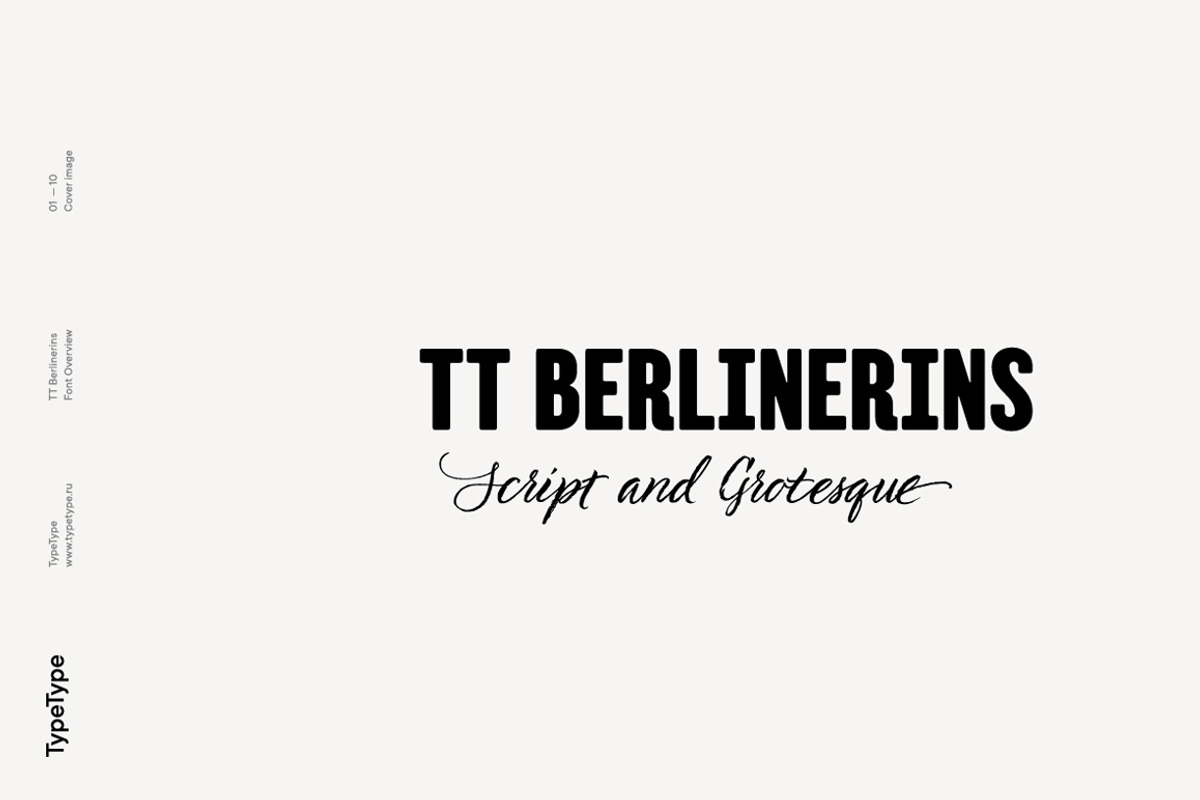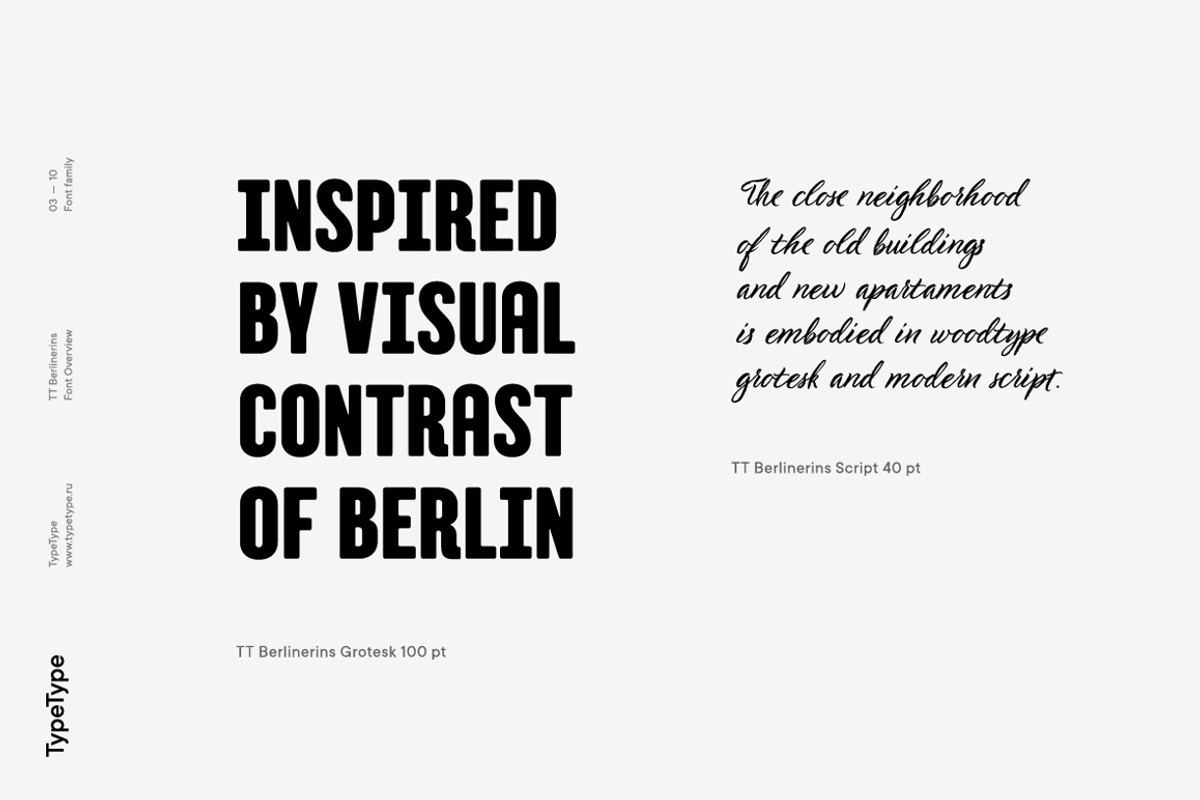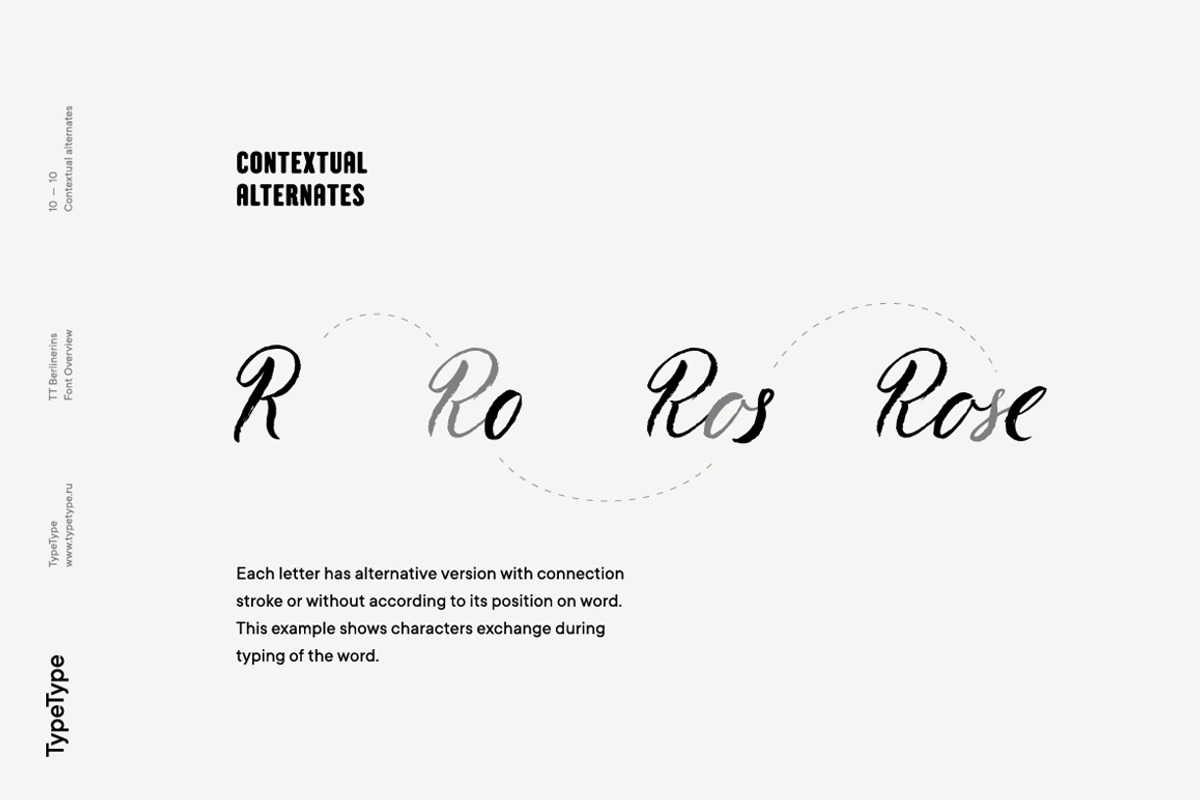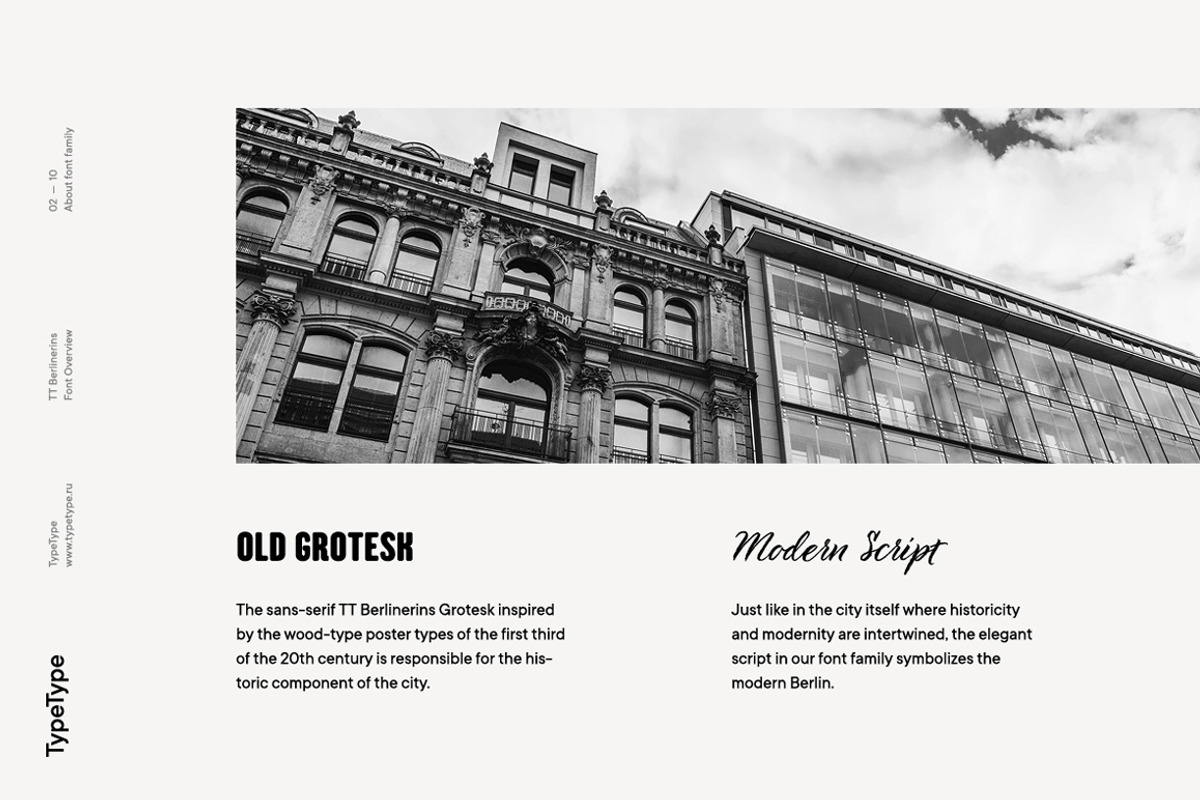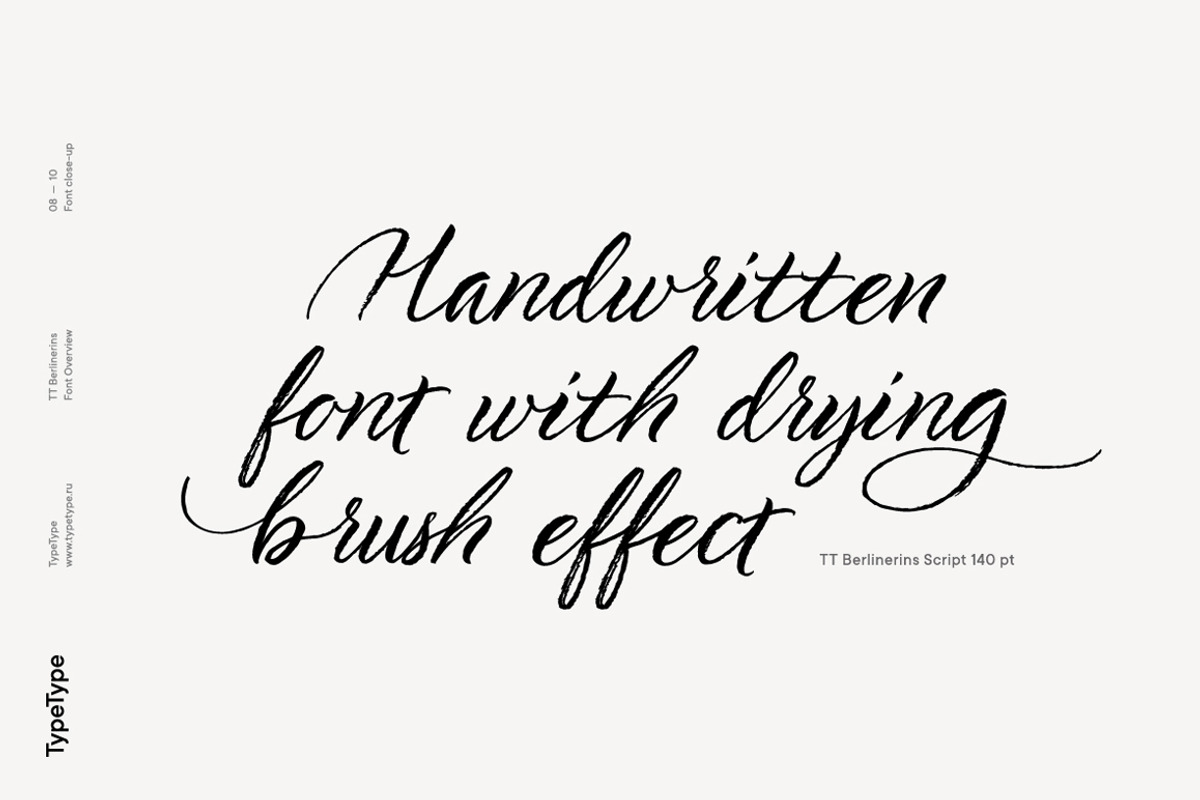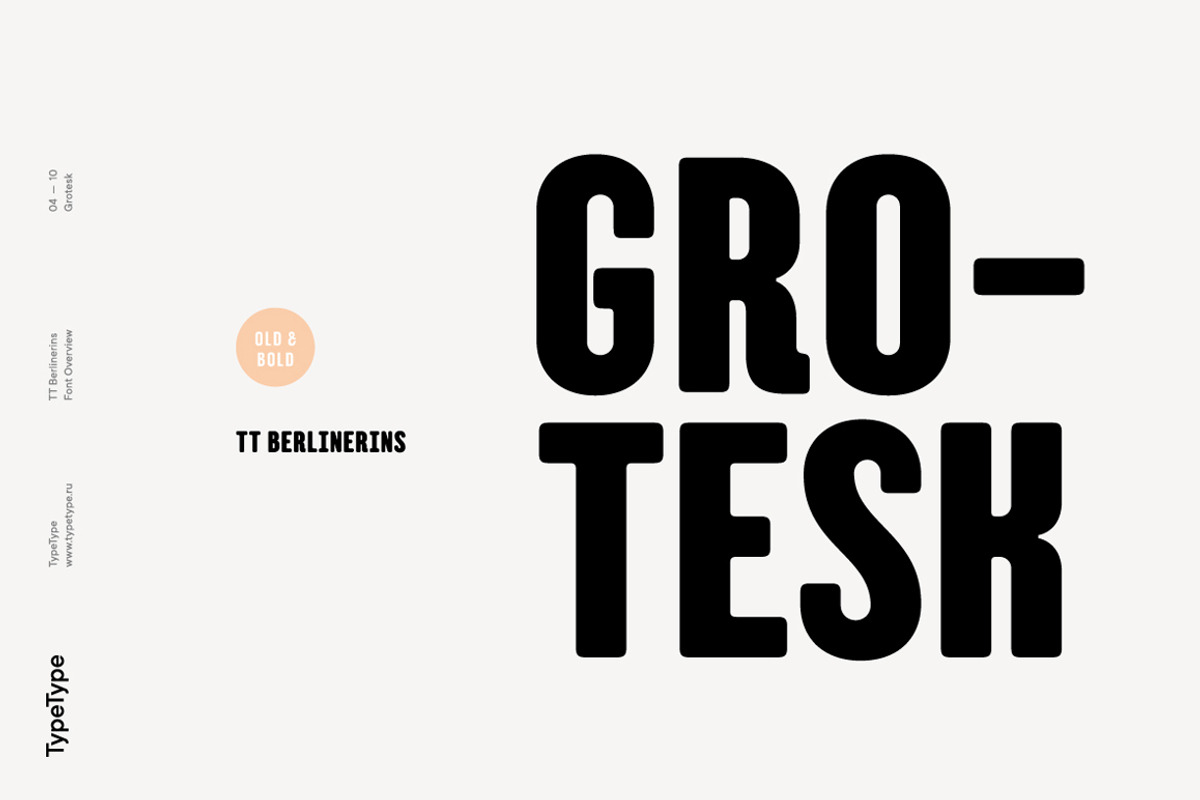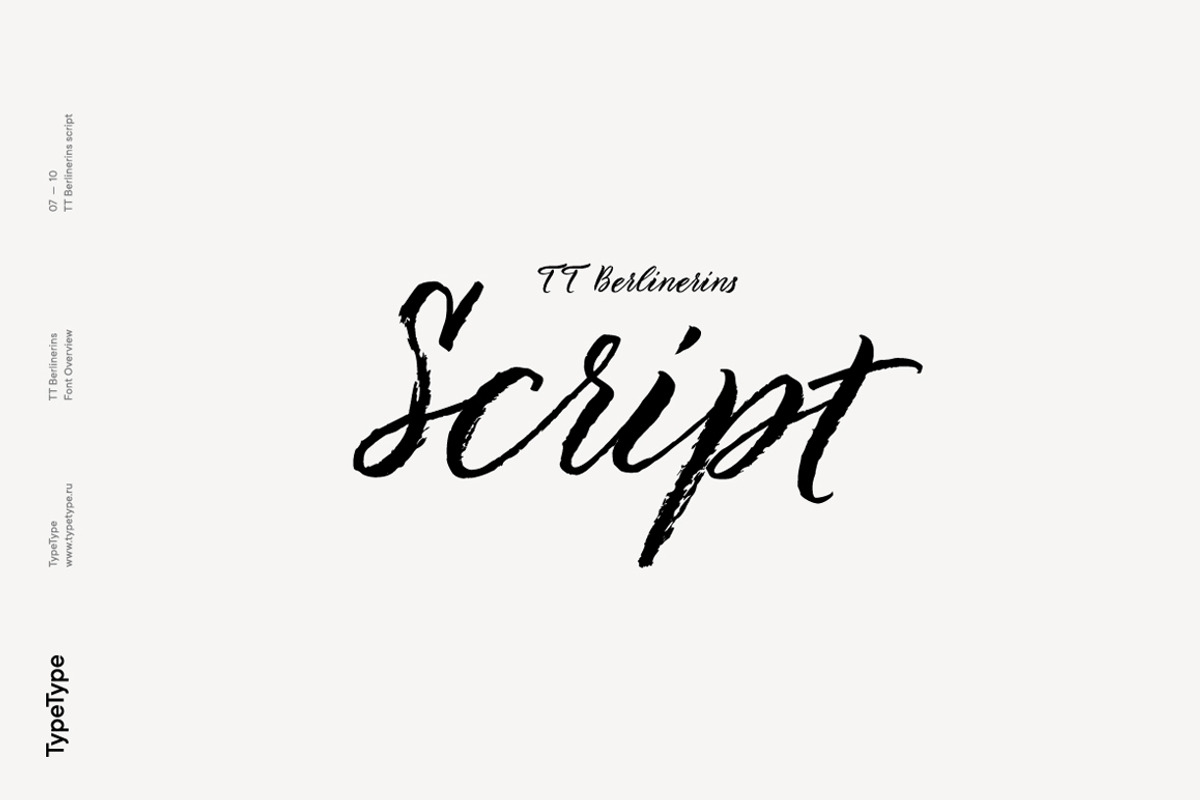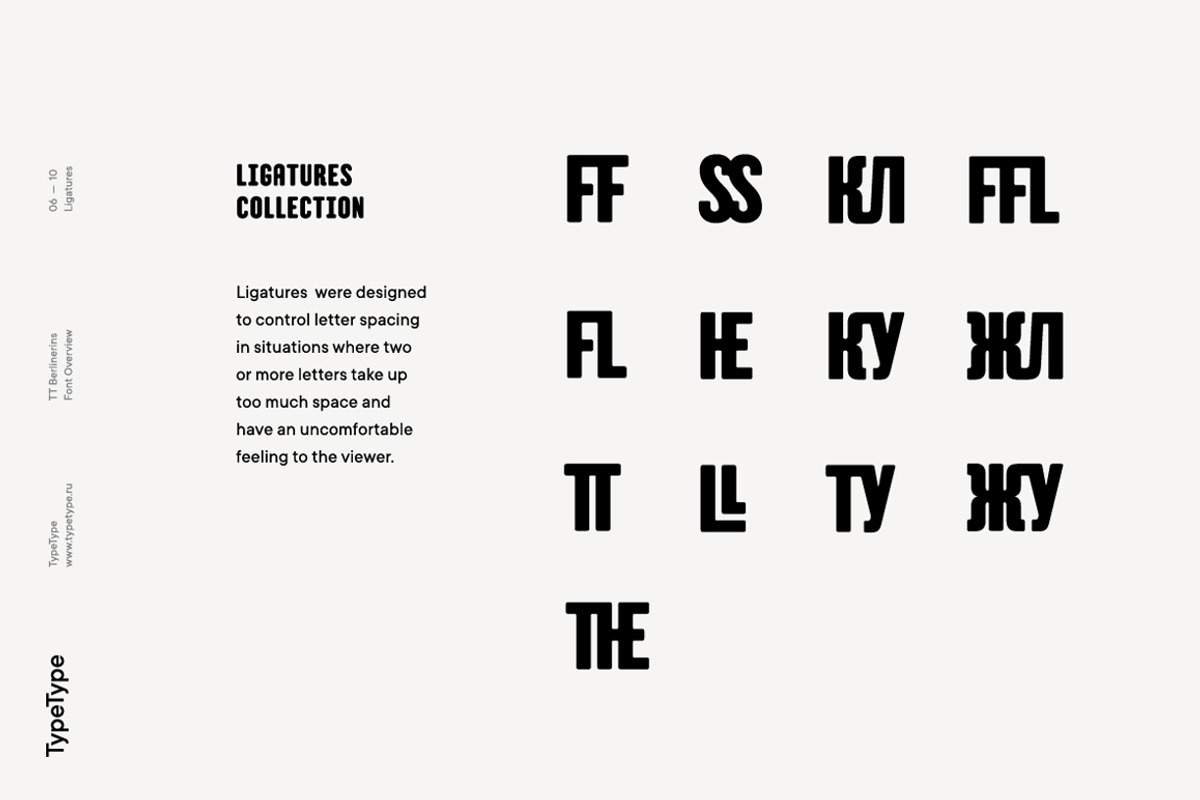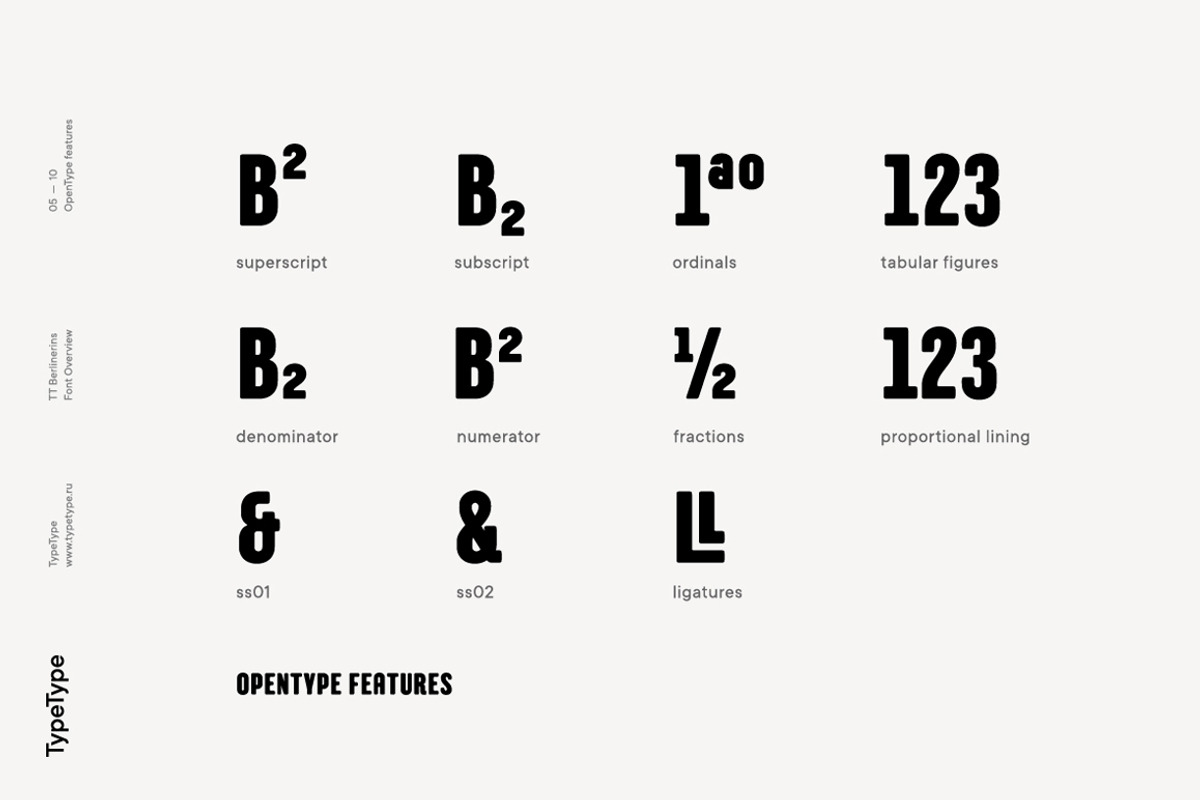
TT Berlinerins
- Script & Grotesk
- 998+ glyphs for Script and 479+ glyphs for Grotesk
- Supports 160 languages (incl. Cyrillic)*
- OpenType features, including Ligatures and Contextual Alternates**
TT Berlinerins is a contrast pair of typefaces which is basically our tribute to Berlin. Just like in the city itself where historicity and modernity are intertwined, the elegant script in our font family symbolizes the modern Berlin, and the sans-serif inspired by the wood-type poster types of the first third of the 20th century is responsible for the historic component of the city.
TT Berlinerins—contrast font pair inspired by Berlin and its intertwining historicity and modernity!
The idea of this project emerged in the beginning of 2016 when we've met Evgenia Pestova, a calligrapher from Berlin, who shared the contemporary perspective on calligraphy and the city impressions with us. The wood-type sans-serif appeared later, after our another colleague had visited Berlin and told us his fascinating story about the things he had seen. The city is full of contrasts—it is very modern and very vintage at the same time. The photographs and the impressions from the trip have also become the basis of our project. That is how we've added a little of old Berlins roughness and inhomogeneity.
TT Berlinerins Script contains 998 glyphs, including more than 240 swashes for which we've written a special feature. We've also drawn a large number of ligatures for TT Berlinerins Script and integrated wide support of OpenType features: ordn, frac, case, sups, sinf, numr, dnom, tnum, pnum, calt, liga. TT Berlinerins Grotesk consists of uppercase letters, includes a set of unusual ligatures and wide support of OpenType features: ordn, frac, sups, sinf, numr, dnom, tnum, pnum, liga, salt and two stylistic sets ss01, ss02 for the ampersand.
**Full list of OpenType features: ordn, frac, sups, sinf, numr, dnom, tnum, pnum, liga, salt, ss01, ss02.